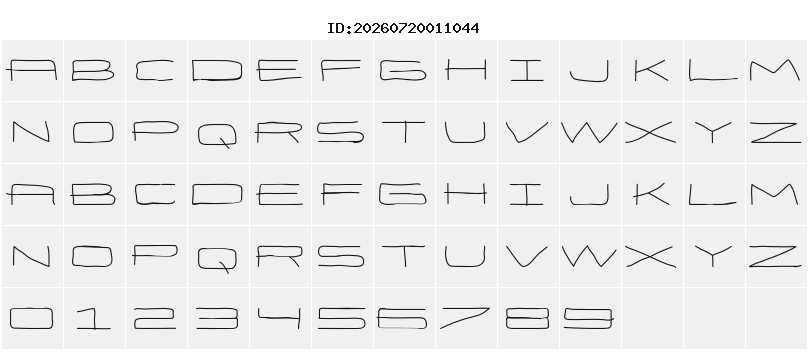
• Font Name: Eneas Expanded Regular
• Designer: Julia Martinez Diana, Antipixel.
About Eneas Expanded Regular.otf
Eneas Expanded Regular.otf is a modern, elegant sans-serif font designed for ultimate readability and visual harmony. Perfect for branding, headlines, web design, and print materials.